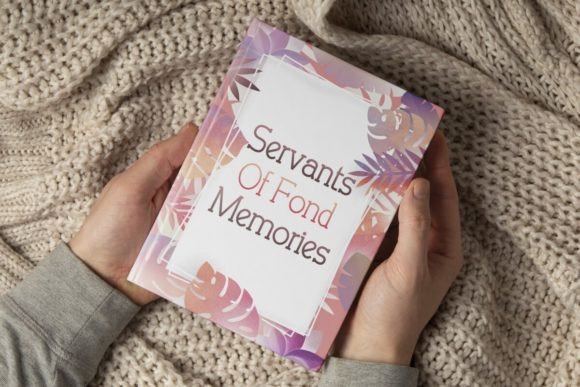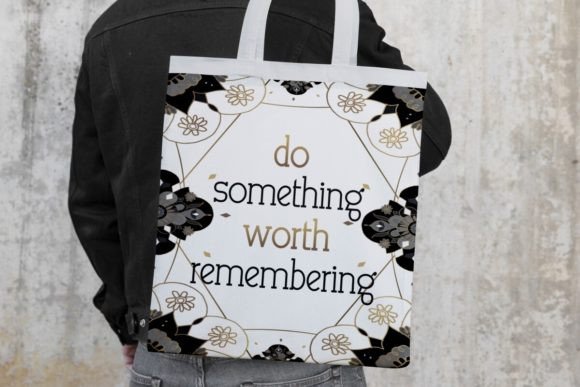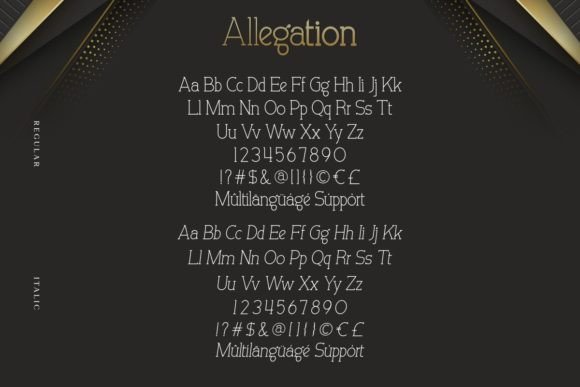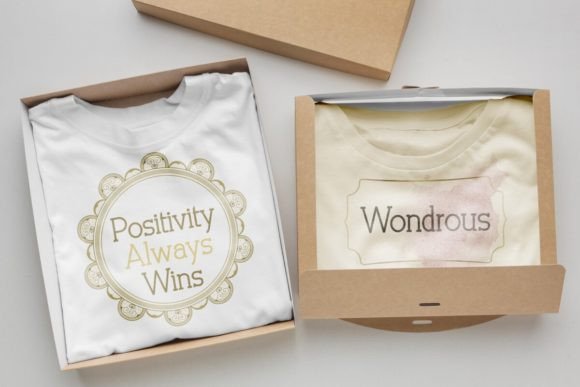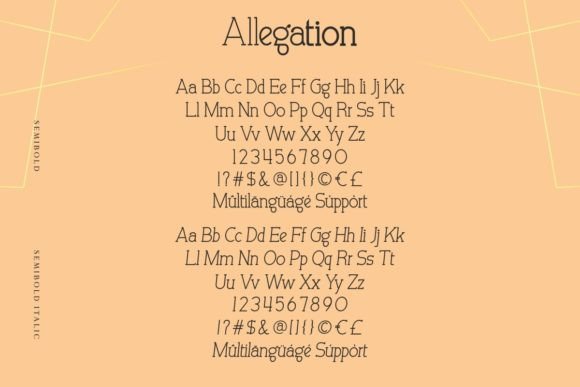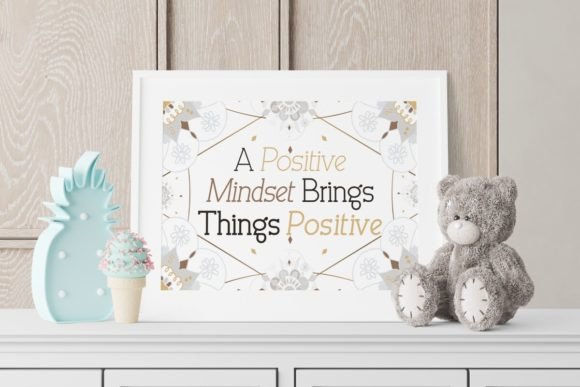
The Allegation Font: A Designer’s New Best Friend?
I’ll never forget the time I was working on a project for a fashion client, and I just couldn’t find the right font to match their brand’s vibe. I scrolled through page after page of Google search results, tried out font after font, but nothing seemed quite right. That was until I stumbled upon the Allegation Font.
This unique serif display font has been a game-changer for me, and I’m excited to share my experience with you. With six styles to choose from – Regular, Italic, Semibold, Semibold Italic, Bold, and Bold Italic – it’s versatile enough to be used in a wide range of industries, from advertisement and clothing brands to cosmetics, fashion, and more!
• ✨ The elegant serif design, perfect for adding a touch of sophistication to any project
• ✅ The range of styles, which makes it easy to create a cohesive brand identity
• 💡 The font’s versatility – it’s suitable for everything from headings and titles to logos and packaging
While the Allegation Font is an excellent choice, there are a few things to keep in mind:
• 🤔 Some of the more intricate details may get lost at smaller font sizes
• ⚠️ It may not be the best choice for body text, as it’s primarily designed for display purposes
The Designer Inspiration Behind Allegation Font
While the true story behind the Allegation Font’s creation is unknown, it’s easy to imagine that the designer was inspired by the world of high-end fashion and luxury. With its elegant serif design and range of styles, it’s clear that this font was crafted with attention to detail and a passion for beautiful typography.
Author NoahType
Q: What is the Allegation Font best suited for?
A: The Allegation Font is perfect for display purposes, such as headings, titles, logos, and packaging. It’s suitable for a wide range of industries, including fashion, beauty, and luxury brands.
Q: Can I use the Allegation Font for body text?
A: While it’s technically possible to use the Allegation Font for body text, it’s primarily designed for display purposes. You may find that it’s not the most readable choice for longer blocks of text.
Q: Is the Allegation Font available in different languages?
A: As a display font, the Allegation Font may not have extensive language support. However, it’s always best to check with the font’s creator or distributor for specific details.